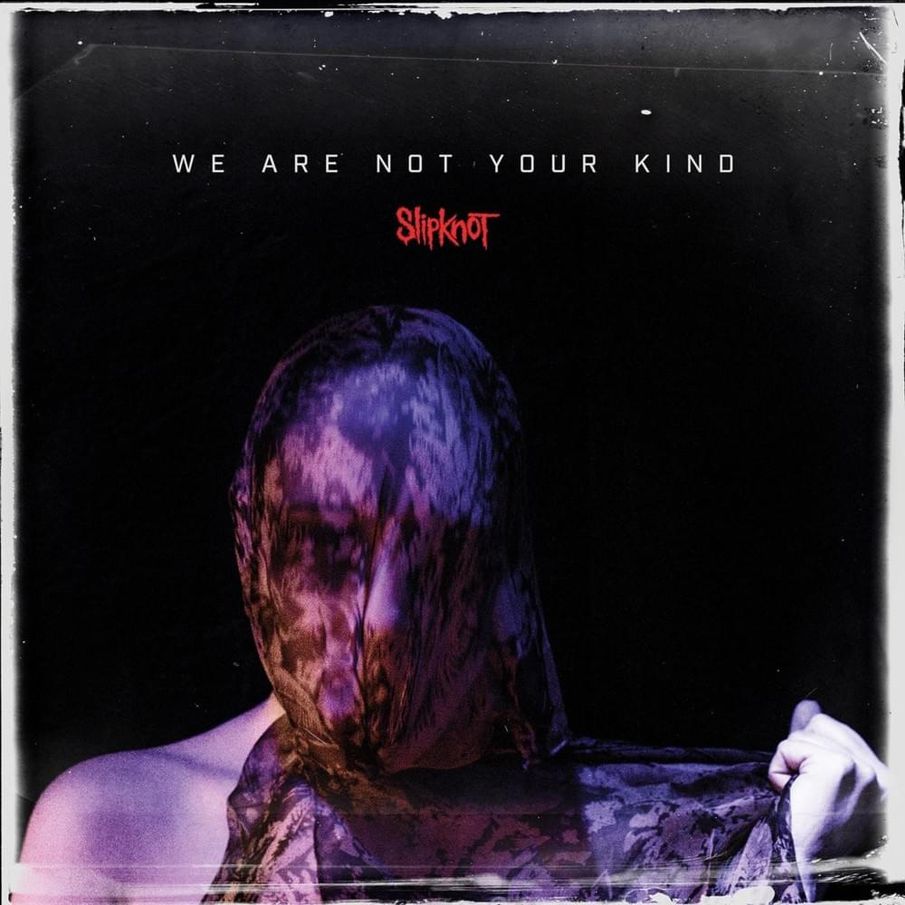
We Are Not Your Kind Font
Fonts in UseWe Are Not Your Kind is the sixth studio album by the American metal band Slipknot, released in 2019. It features a blend of their signature heavy sound with experimentation in melody and atmospheric elements.
The album title and tracklist on the back cover both feature the Industry typeface from Fort Foundry's Industry Book, a versatile sans-serif designed by Mattox Shuler. The band logo lettering is reminiscent of the free font called Sickness.